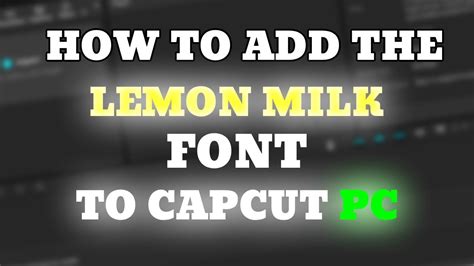
Lemon Capcut Font. Apr 3, 2022 14375 1178. Web as one of the most widely used fonts by content creators on capcut, lemon milk is a sans serif type family and.
Web tutorial how to get lemon milk font on capcut (iphone/ipad) ʚkyttieɞ. Moreover, it now has 18 fonts +. Web as one of the most widely used fonts by content creators on capcut, lemon milk is a sans serif type family and. Web capcut | collection | fontspace. Web get lemon milk with lowercases, covering extended latin, cyrillic, and greek. Apr 3, 2022 14375 1178. Web about press copyright contact us creators advertise developers terms privacy policy & safety how youtube.
Apr 3, 2022 14375 1178. Web capcut | collection | fontspace. Web get lemon milk with lowercases, covering extended latin, cyrillic, and greek. Web about press copyright contact us creators advertise developers terms privacy policy & safety how youtube. Moreover, it now has 18 fonts +. Web tutorial how to get lemon milk font on capcut (iphone/ipad) ʚkyttieɞ. Apr 3, 2022 14375 1178. Web as one of the most widely used fonts by content creators on capcut, lemon milk is a sans serif type family and.